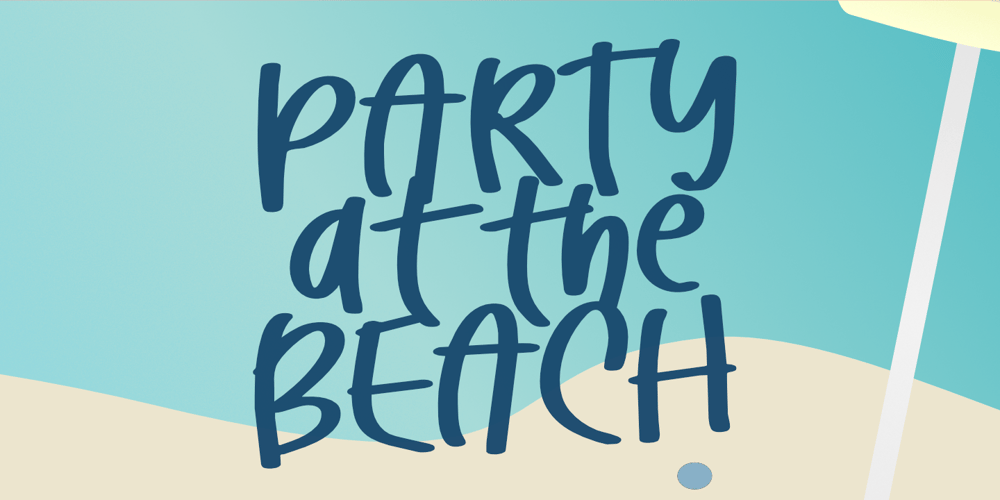
Party at the Beach Font Family was designed by Aldy Sidik and published by Epiclinez. Party at the Beach contains 1 styles and family package options. Bring on the summer fun with Party at the Beach and infuse your projects with joy and excitement! Whether you’re planning a beach-themed event or want to add sunny vibes to your designs, this font can spark smiles wherever it goes. Whether you’re creating invitations, posters, or social media graphics, embrace the carefree spirit of seaside celebrations with Party at the Beach.Party at the Beach features : Standard Latin Numbers, symbols, and punctuations Multilingual Support. Fully accessible without additional design software Simple Installations Works on PC & Mac Thank You.